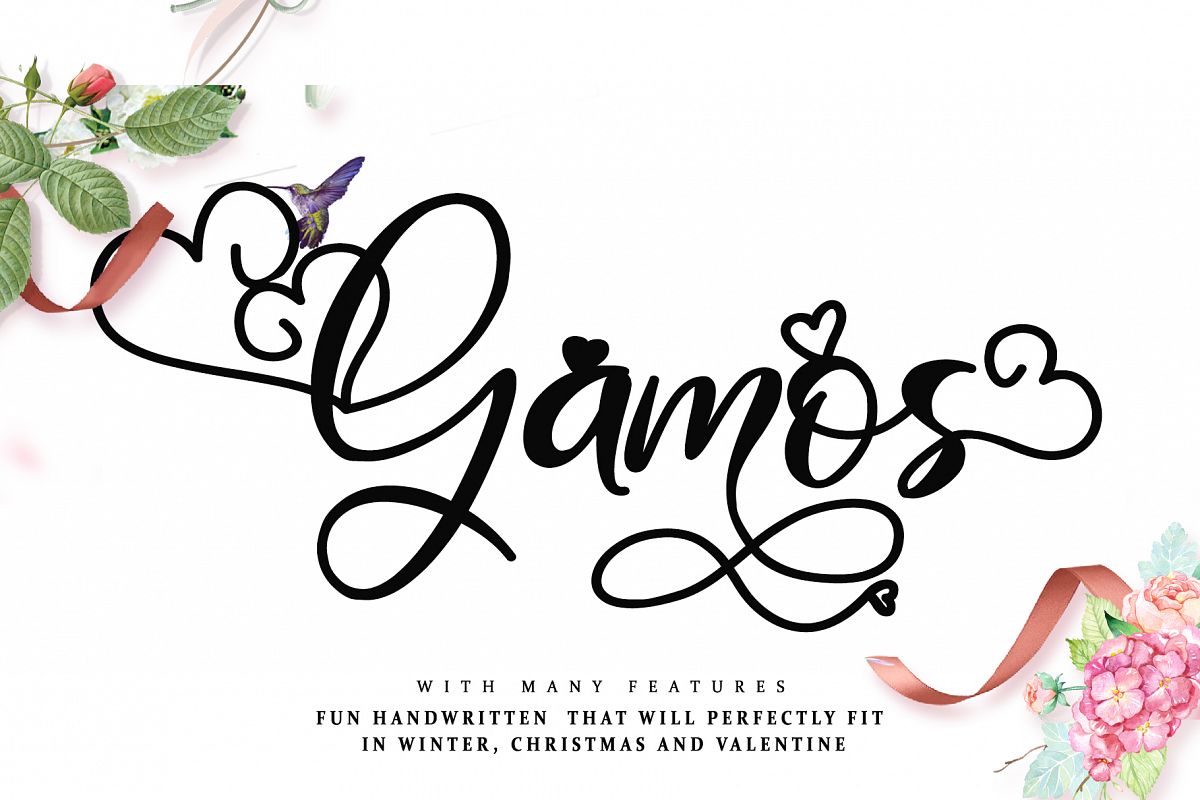
Gamos
comes from Greek which means marriage. add some love in an instant. The font
comes decorated with small embellishments, such as hearts. Making it the
perfect font for Valentines Day designs, but also Christmas, Weddings,
Anniversaries, Birthdays escort cards, table numbers, header menus, display’s,
logos, slider blogs, custom addresses, stamps, packaging, greeting cards, and
much more!
3. many features: Alternates (A-Z), Alternates (a-z), Ligatures, Swash (A-Z), Swash (a-z), Titling (a-z), A-Z ss01, a-z ss02, a-z ss03,  a-z ss04,  a-z ss05